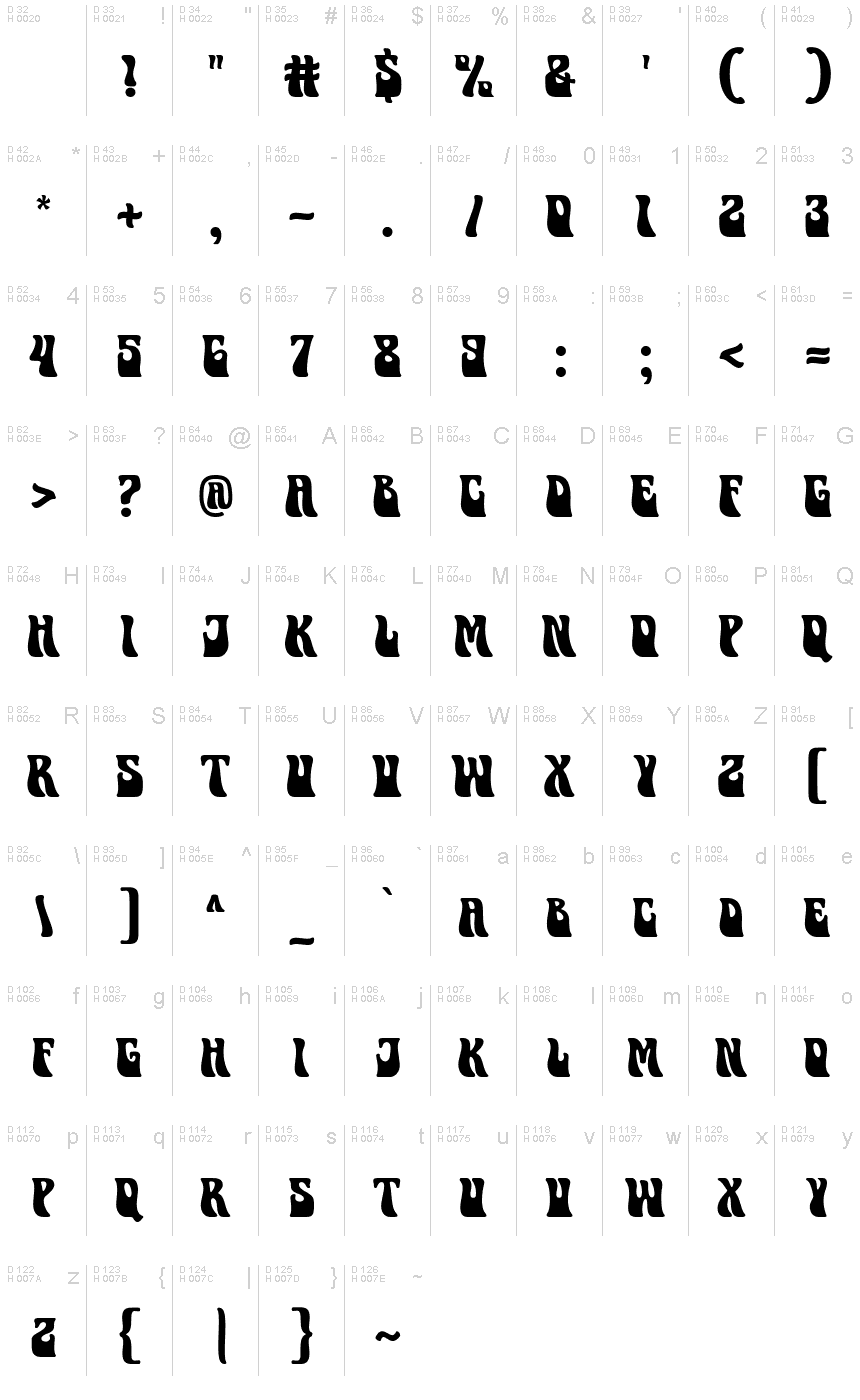
Super Power
Super Power, designed by fsuarez913, is a display font that packs a punch with its bold, condensed styling. This groovy typeface brings the exuberant '70s back to life through its thick and vivacious strokes, perfectly embodying the era's dynamic energy.
Ideal for creative minds looking to inject a sense of retro flair into their projects, Super Power stands out on posters and album covers, ensuring that your design not only speaks but shouts with confidence and style.
Embrace the nostalgia of disco's golden days with this unapologetically bold font as your ally in crafting visuals that are as powerful and compelling as the name suggests.